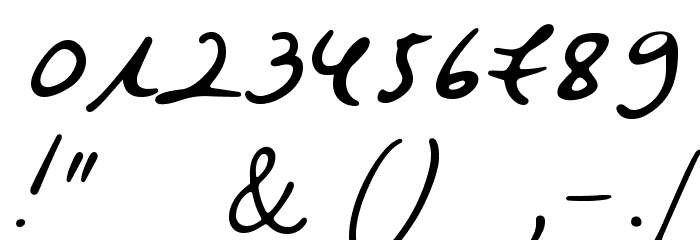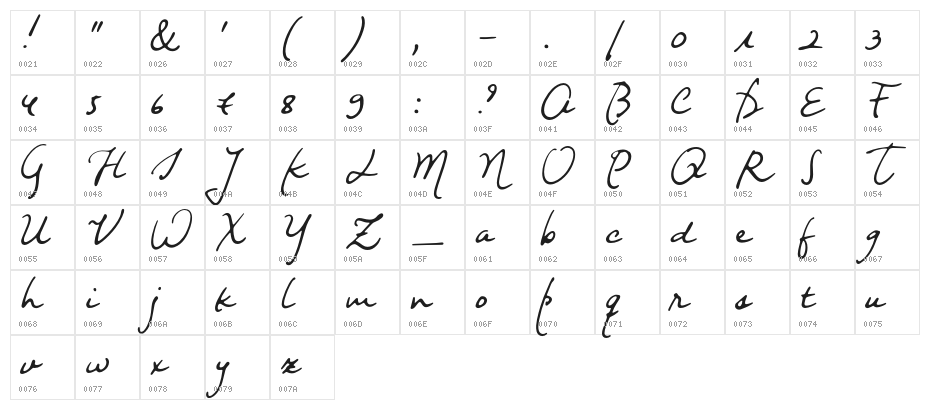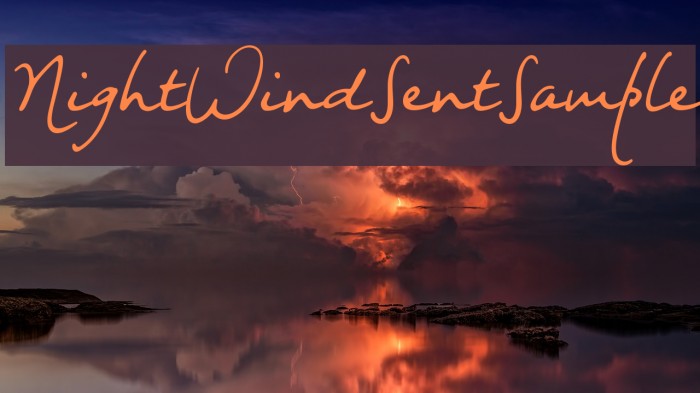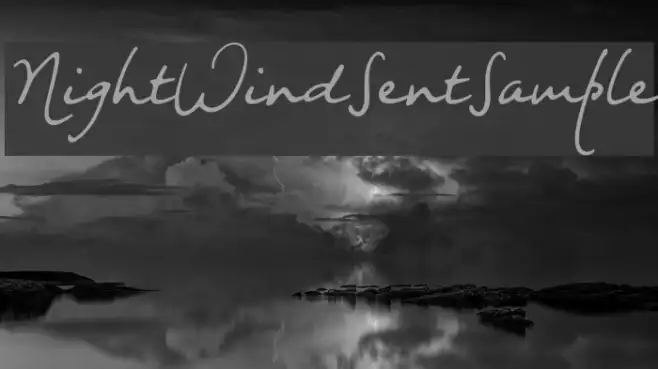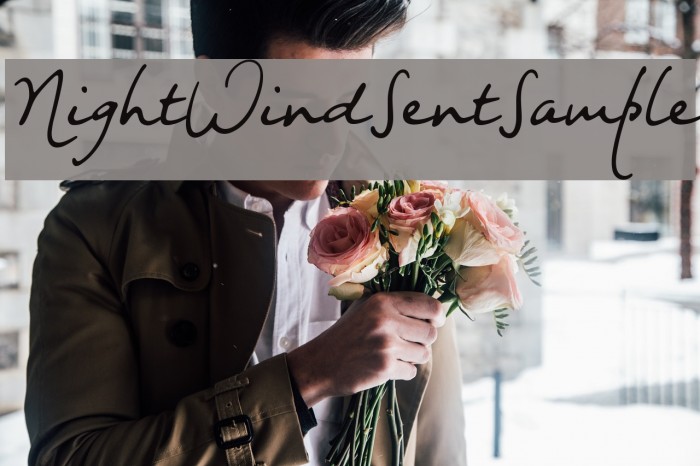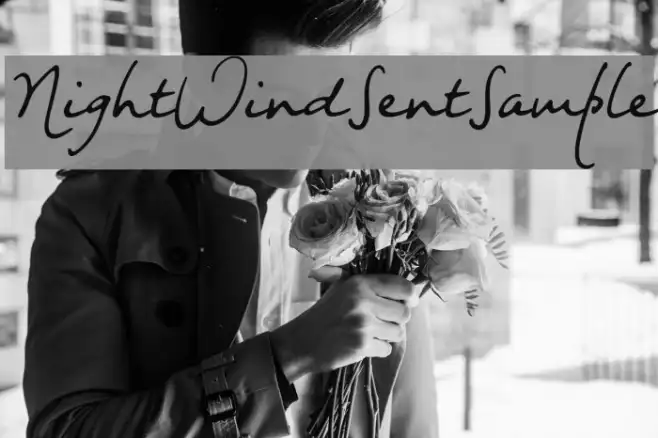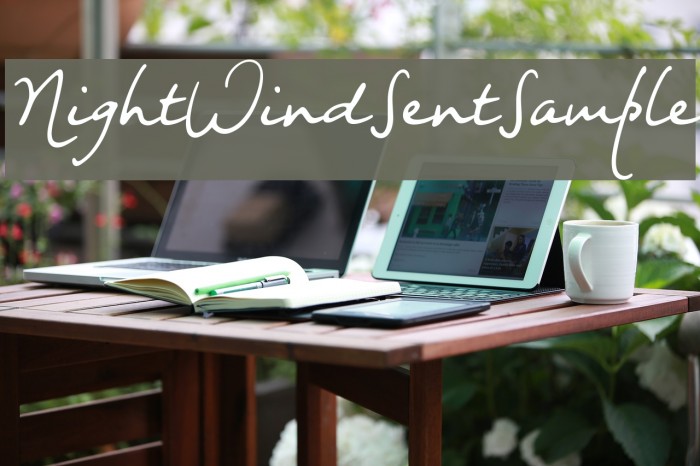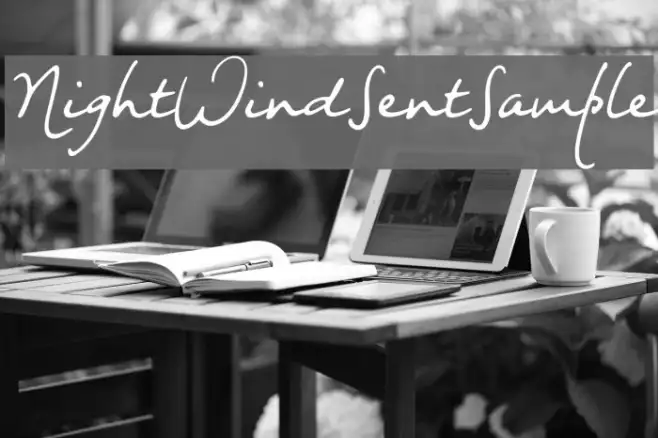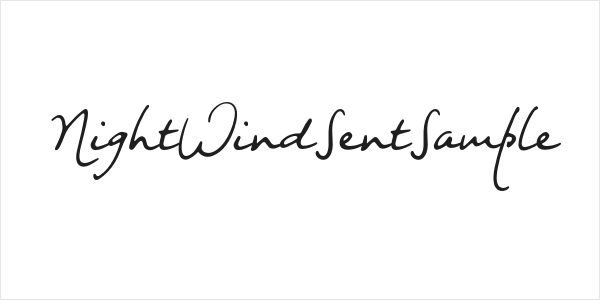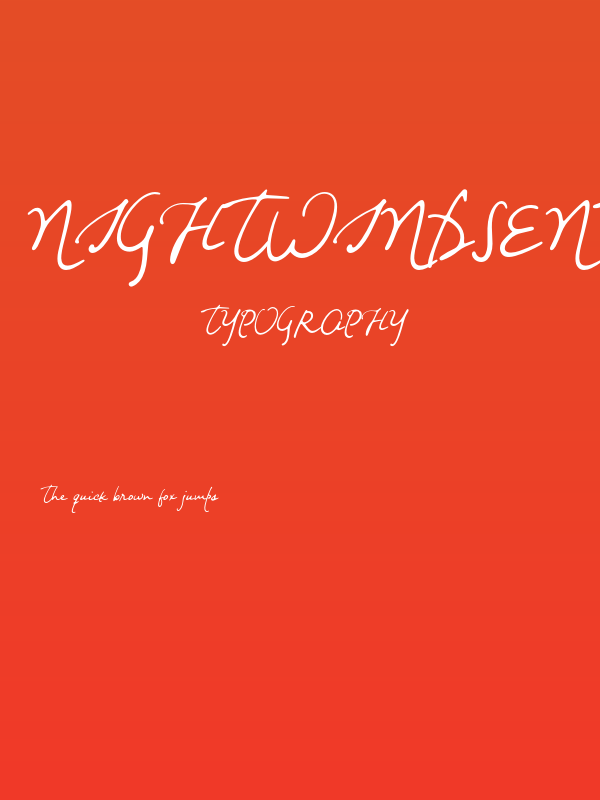
NightWindSentSample Font
NightWindSentSample Description
This font exudes a dynamic and fluid style, characterized by its cursive script that mimics natural handwriting. The letters are connected, creating a seamless flow that is both elegant and expressive. The uppercase letters are slightly more elaborate, with sweeping curves and loops that add a touch of sophistication. The lowercase letters maintain a consistent rhythm, enhancing readability while preserving the artistic flair. The numerals are distinct yet harmonize well with the overall script style. Special characters are thoughtfully designed to match the fluidity of the letters, ensuring a cohesive appearance across all text elements.